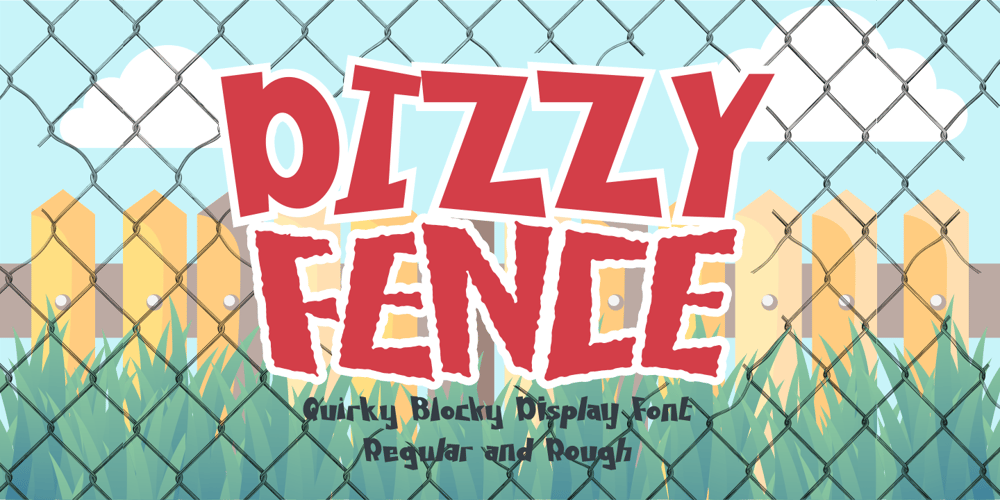
Dizzy Fence Font Family was designed by Putra Novembria Candra Kusuma and published by Putracetol. Dizzy Fence contains 2 styles and family package options. Introducing Dizzy Fence, a quirky and blocky display font. This font is perfect for your projects related to kids, which is playful and fun. This font also has 2 versions, clean and rough. Dizzy Fence also perfect for branding design, posters, apparel, logotype, header, quote, invitation, greeting card, cover, poster, fashion design and any more.Come with lot of ligatures character, its help you to make great lettering. This font is also support multi language.